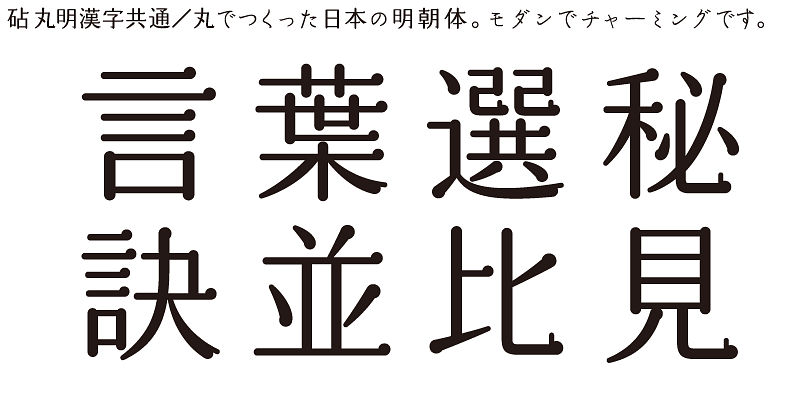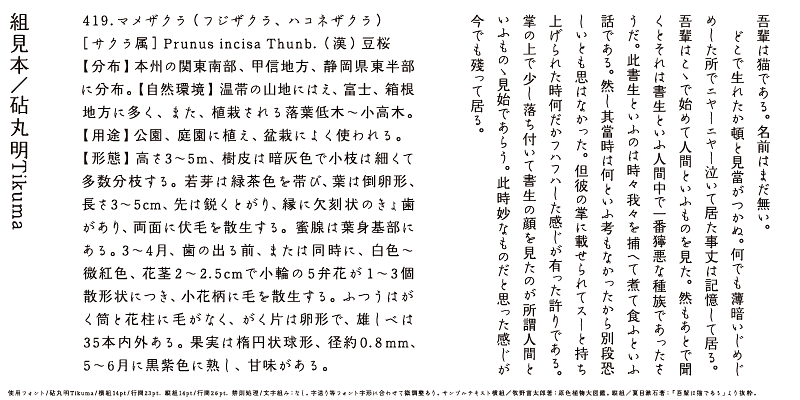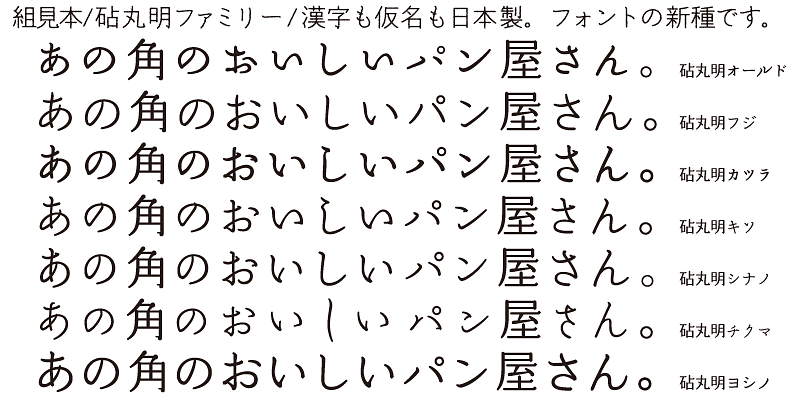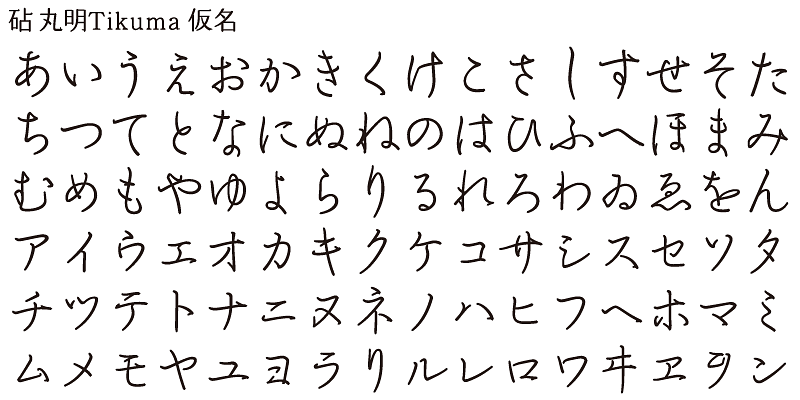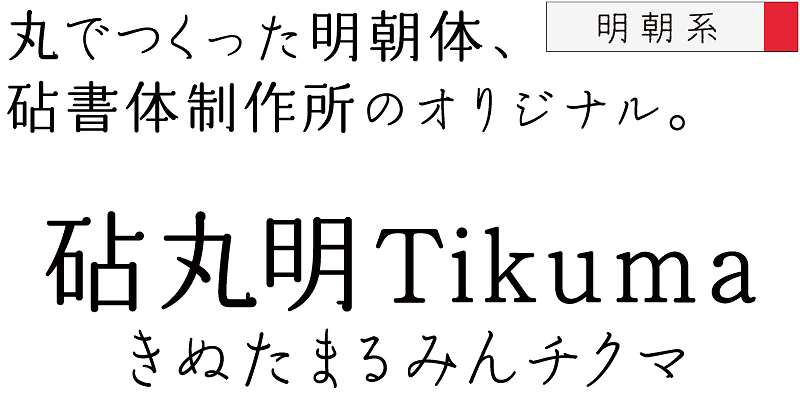
MaruminTikuma’s Kanji characters are lighter than its kana characters. It has the flavor of ancient calligraphy with fluid movement of strokes. The combination of elegant kana characters with curved elements and kanji characters with geometric shapes is boldly refreshing.
The same Ideographic (kanji) characters are shared by all the Marumin variations. The design of kanji characters of Marumin is based on the Mincho type style in Japan, but it has stroke elements with rounded features. The terminals of its horizontal and vertical strokes, dots, tome and harai stroke shapes are all rounded. Marumin establishes a new category of “Rounded Minchotai” with seven kana variations in total.
One characteristic of the Japanese language is that it has kana syllabic characters. Kana characters were invented in Japan to represent sounds in Japanese and translate texts imported from China into Japanese. Kana characters are needed to create Japanese words and expressions from kanji/Chinese ideographic characters. While there may be ambiguities, these words and expressions exhibit the warmth and gentleness of the lives of people living in the small and densely populated land of Japan.
Kinuta Font Factory’s believes that kana characters are the origin of written words in Japanese, and we think that improving kana characters will make Japanese text more attractive. On average, 60% of Japanese text consists of kana characters – changing the shape of these characters changes the visual appearance of the text. The possibilities for typographic expression using simple, dynamic and curvilinear kana characters are vast, and the richness of Japanese text depends on kana characters. This is the reason why Kinuta Font Factory offers many variations of kana typefaces.